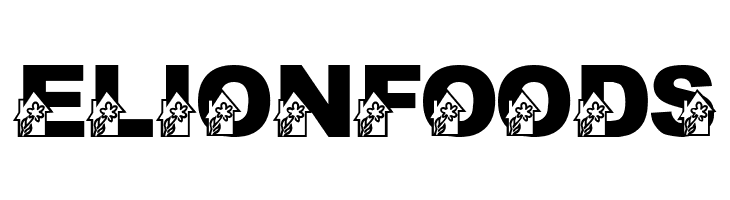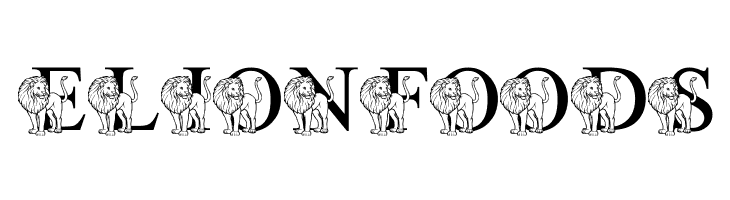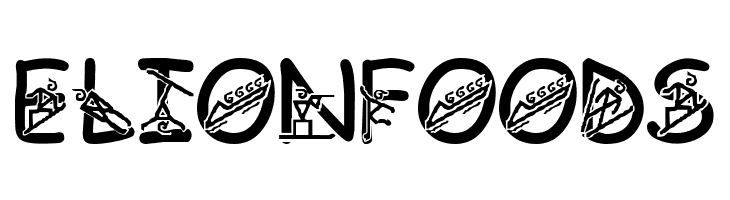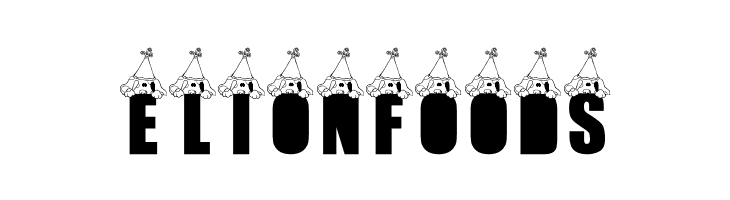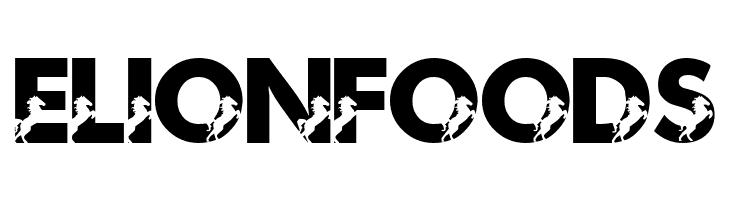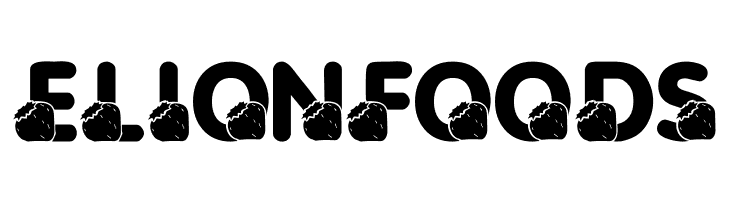
• LMS Holly's Greenhouse
A bold, decorative font with greenhouse-themed embellishments on each letter.
• LMS How Lovely Are Thy Branches
A decorative, holiday-themed font with script letters inside ornate ornaments.
• LMS I Love This Game
A bold, basketball-themed font with integrated player silhouettes.
• LMS Katy's Bouquet
An ornate script font with floral embellishments, perfect for elegant designs.
• LMS L Is For Lion
A bold serif font with playful lion illustrations integrated into each letter.
• LMS Lighting The Fire Within
A bold, decorative font with abstract, flame-like patterns within each character.
• LMS Looking For Blues Clues
A playful, bold font with cartoon character illustrations peeking over each letter.
• LMS Mighty Mustang
A bold, decorative font with horse silhouettes integrated into each character.
• LMS Moms Birthday Treat
A playful, cupcake-themed decorative font with bold, rounded characters.
• LMS Monday Night Football
A bold, football-themed font with integrated sports elements.